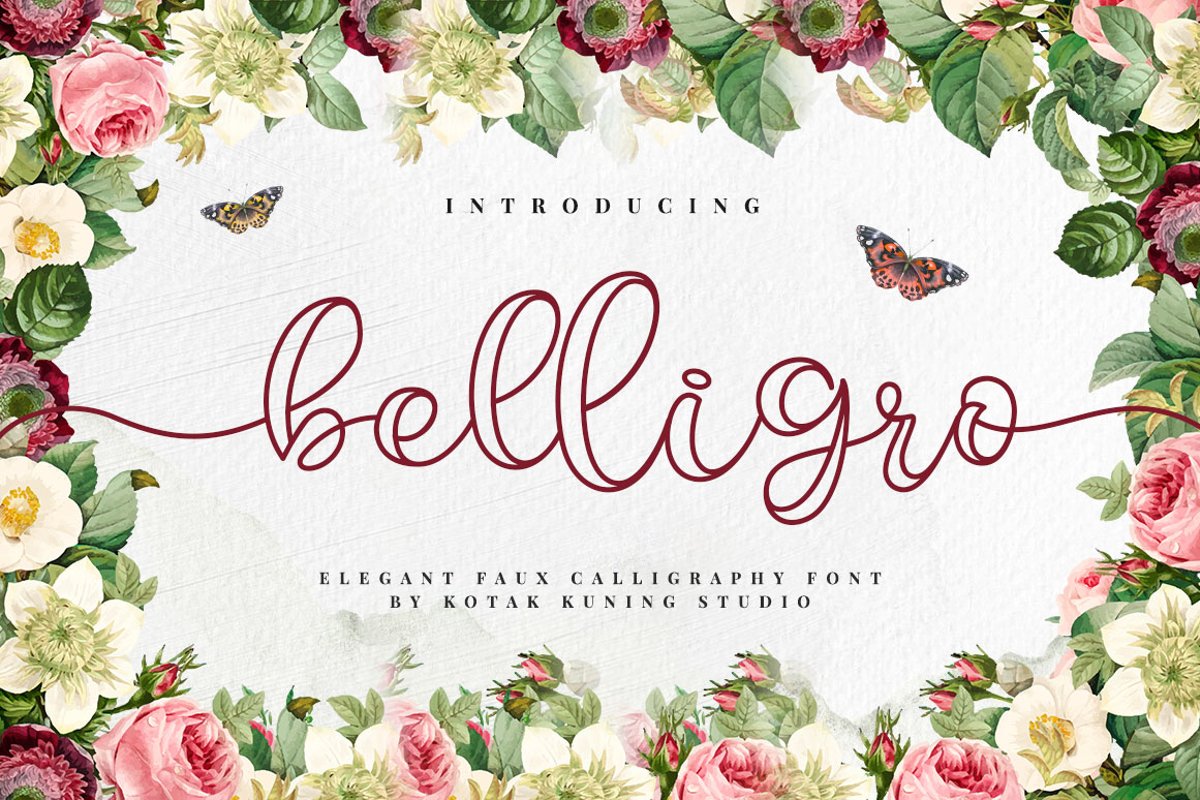
Outline Script - Belligro Font
Belligro
Belligro is a handwritten script with a natural & stylish flow. This font has a multitude of natural looking ligatures in its OpenType features - making the font look as close to natural handwriting as possible. This collection of scripts is perfect for your branding.
• Belligro includes capital and lowercase letters, alternates, and Ligatures
• Numbers + punctuation
• Foreign language support